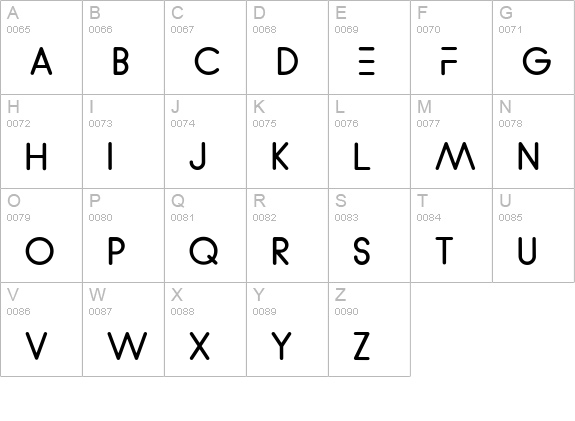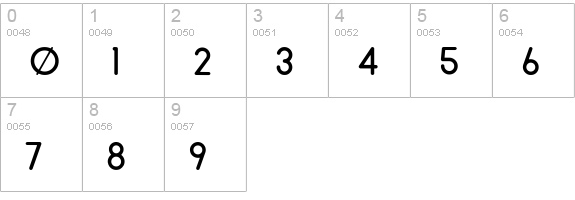
WVelez Logofont Font Details
WVelez Logofont is a stunning font that effortlessly combines elegance and modernity. This versatile typeface is perfect for creating eye-catching logos, branding materials, and various design projects. Its unique attributes make it a standout choice for businesses and individuals looking to make a lasting impression. This font boasts a bold and confident appearance, with clean lines and a well-balanced design. Its sleek and sophisticated letterforms exude professionalism and creativity, making it suitable for a wide range of industries and purposes. Whether you're designing for a high-end fashion brand, a tech startup, or a creative agency, WVelez Logofont will elevate your project to new heights. One of the most appealing aspects of WVelez Logofont is that it is available for free. You can easily download this font from FontsMarket.com, without having to worry about any licensing restrictions or fees. This means that you can use this incredible font in both personal and commercial projects without any limitations. The versatility of WVelez Logofont is further enhanced by its extensive character set. It includes uppercase and lowercase letters, numerals, punctuation marks, and a wide range of special characters and symbols. This allows you to fully express your creativity and create unique designs that truly stand out from the crowd. The legibility of WVelez Logofont is exceptional, ensuring that your message is clear and easily readable in any size or format. Whether you're using it for large-scale signage or small print materials, this font retains its distinctiveness and readability, ensuring that your audience can effortlessly engage with your content. With its seamless blending of elegance and modernity, WVelez Logofont is an invaluable addition to any designer's toolkit. Its stunning aesthetics, coupled with its versatility and legibility, make it a must-have font for anyone looking to create visually striking and impactful designs. Experience the power of WVelez Logofont today by downloading it for free at FontsMarket.com. Unleash your creativity and elevate your designs with this remarkable font that is sure to leave a lasting impression.